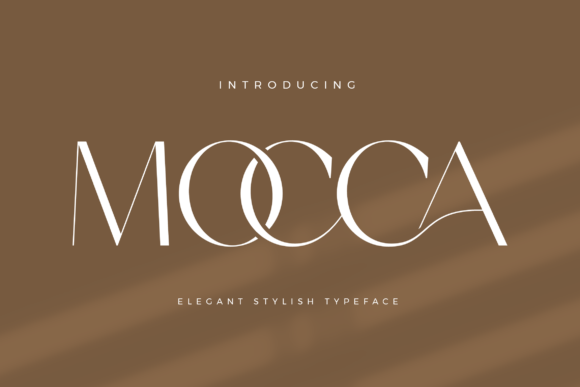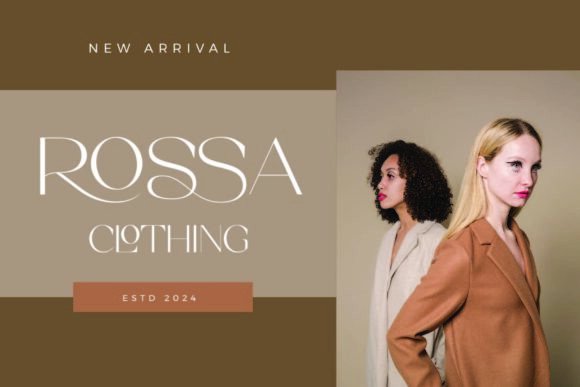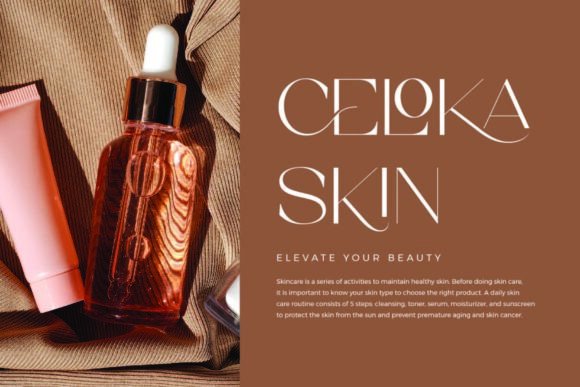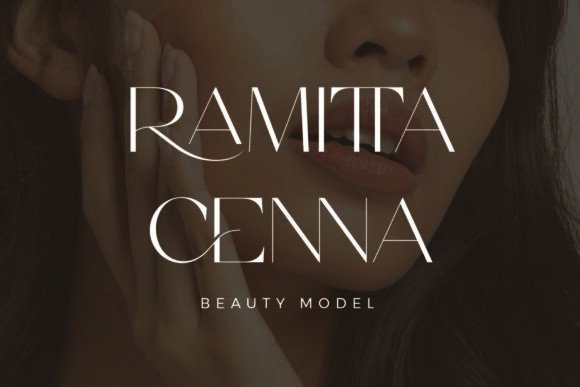
Mocca Font: Modern Minimalist Sans Serif for Elegant Logo Design
About the Mocca Font
Make a bold statement with Mocca Font, a powerful and memorable font. Mocca is a gorgeous sans serif font, inspired by the famous minimalist logo perfect for the purposes of designing templates, brochures, videos, advertising branding, logos, invitation, layout design, elegant crafting, beauty design and others.
Mocca’s clean lines and minimalist aesthetic make it ideal for headlines, logos, and short-form text in branding materials and advertising. It excels in creating a sophisticated and modern feel for packaging design and promotional posters. However, its limited character set and potentially monotonous nature make it unsuitable for body text or long paragraphs in user interfaces.
The font possesses a strong, elegant personality. It’s best suited for brands projecting confidence and a sense of refined simplicity. Consider pairing Mocca with a warmer serif like Lora for a balanced contrast, or a playful script font such as Great Vibes for a touch of personality in supporting text.
For a more modern and geometric feel, pairing with a sans-serif like Montserrat can create a cohesive yet dynamic design system. Avoid pairing it with other ultra-minimalist fonts, as this can result in a visually bland outcome.